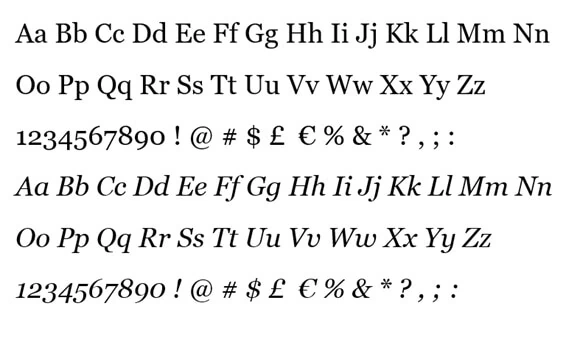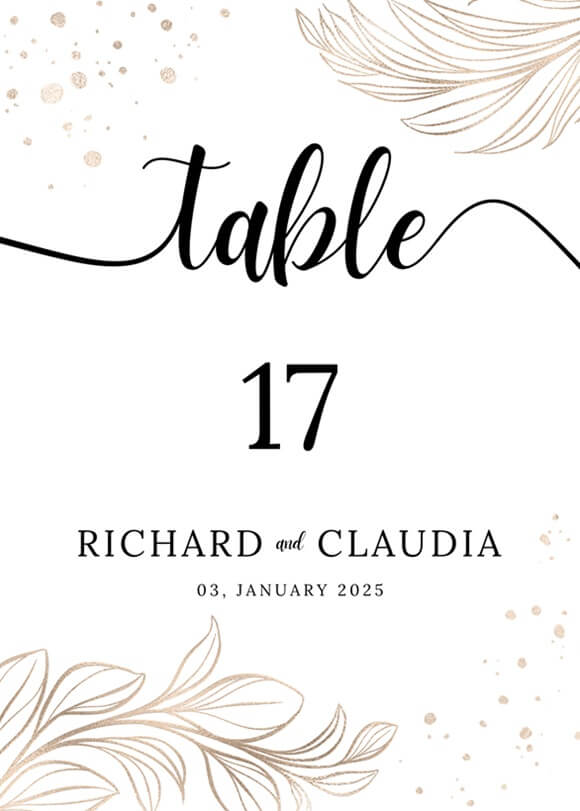
Whether youโre drawing up a new tattoo, making a jersey for your favorite sports team, or creating another project that uses numbers, itโs important to make sure you choose a number font that suits your designโs overall style.
With such a wide range of fonts available, it can be difficult to determine which fonts are the best ones to use. We did the research and created a list of current favorite fonts loved by tattoo artists, apparel designers, and DIY enthusiasts alike.
From old-school sports designs to modern and minimal feminine designs, the list below offers the best number fonts with a wide range of styles to choose from.
No matter what project youโre working on, youโll find a font here that meets your needs.
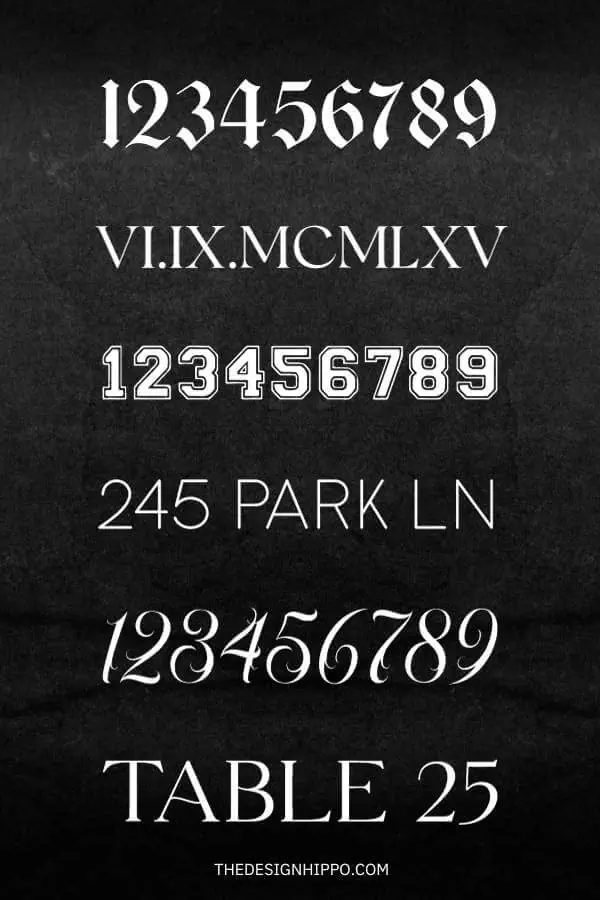
Best Number Fonts – Our Top Picks
- Best for Tattoos – Romans Story
- Best Old English – Bugenvil
- Best for Jersey Numbers – Varsity Gameday
- Best for Cricut – College
- Best Bold – Beardsons
- Best Fancy – Black Ink
- Best for House Numbers – Aura
- Best for Wedding Table Numbers – Le Mores Signature
- Best for Car Number Plate – Dealerplate
- Best for Racing – Speed
- Best in Word – Georgia
- Best in Canva – Lora
Best Number Fonts
As avid DIYers and professional designers, weโve learned what people look for in number fonts and understand which fonts look best on certain types of designs.
Whether youโre creating artwork for a client or youโre working on personal projects for yourself, you can trust our years of experience working in the design industry to bring you the best fonts currently available on the web.
Romans Story
Best Number Font for Tattoos
Romans Story is a stylish font, perfect for Roman Numeral tattoos. The serif-style typeface features elegant numbers, making it an ideal choice for displaying important dates.
We chose this font as our top pick for tattoos because the smooth lines make the letters and numbers easy to draw and read.
The ligatures also add a beautiful twist to the text’s overall look, allowing you to make your tattoo uniquely your own.
Bugenvil
Best Old English Font for Numbers
Bugenvil is a great font choice for tattoo artists drawing up a design in blackletter style. The uppercase characters in this font feature elaborate serifs, while the lowercase characters and gothic numbers have a more elegant and refined appearance.
For tattoos that include both text and numbers, add the included swashes underneath the lettering to embellish your design further.
Varsity Gameday
Best Font for Jersey Numbers
Varsity Gameday is a classic collegiate-style font perfect for sports jerseys and school t-shirt designs.
The font consists of all uppercase letters capped with bold slab serifs, which makes all of the characters easy to read from the bleachers.
Its outlined style is particularly suited for football and baseball team apparel, adding a spirited and athletic touch to the designs.
College
Best for Cricut
College is the perfect choice for DIYers because it comes in a variety of six font styles to choose from.
For t-shirt and jersey designs with a sassy and playful look, choose the modern options included, like Sports Leopard (decorated with a leopard-print pattern), Sporty Leopard Craft, or Rainbow (stacked style).
If you need a font with a more traditional old-school vibe, opt for Univercity, Brown College, or Famous College.
Beardsons
Best Bold Number Font
Beardsons is an excellent choice for tattoo artists needing a bold font with a vintage design. The blackletter style of the letters and numbers in this font, along with the included ornaments, will help you create a unique and timeless tattoo.
If you’re creating t-shirts or signs, use the frames, badges, and panels to give your design a decorative touch.
Black Ink
Best Fancy Number Font
Black Ink is a blackletter script font perfect for tattoo or t-shirt designs that have an ornate and feminine look.
The uppercase and lowercase letters in this font feature extravagant glyphs. Additionally, the number characters have a sophisticated decorative style. This makes it an ideal choice for stylish tattoos.
Aura
Best for House Numbers
Aura is a modern sans-serif font featuring sleek characters. Itโs a popular choice for house numbers because of its clean lines, rounded corners, and legibility from a distance.
Choose Aura if you are looking to add a touch of whimsy and elegance to a house.
Le Mores Signature
Best for Wedding Table Numbers
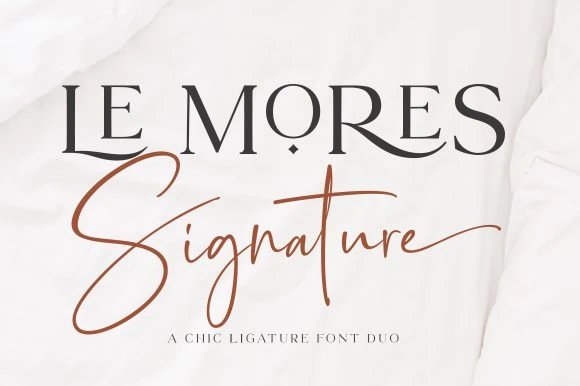
Le Mores Signature is a romantic font duo with a modern style. It comes with an elegant serif font and a beautiful script font that pairs perfectly together.
We chose this font as our top recommendation for wedding table numbers because it’s easy to read and is suitable for weddings or other formal events.
What is the most readable font for numbers?
If legibility is the single most important factor in your design, stick to using simple serif or sans-serif fonts. Avoid decorative font styles such as cursive or blackletter.
Letters that are thick, solid, and bold are naturally easier to read, so try to avoid using thin fonts and opt for serif or sans-serif fonts with a heavy weight.
Additionally, you also want to keep your design readable by avoiding extra glyphs, swashes, or stylistic alternates. The more plain your design is, the more legible it will be.